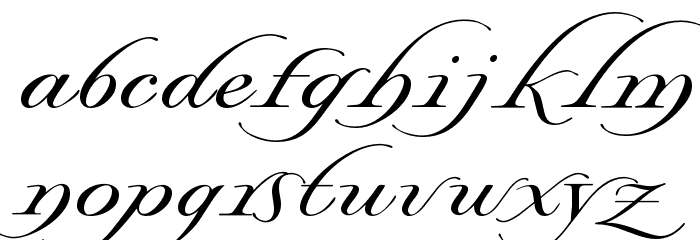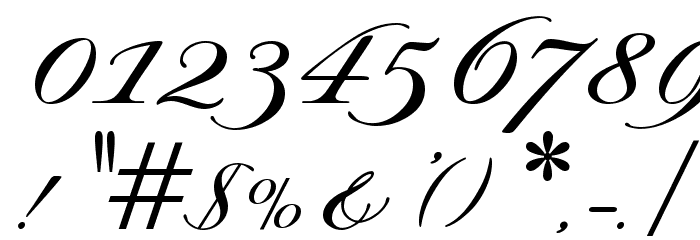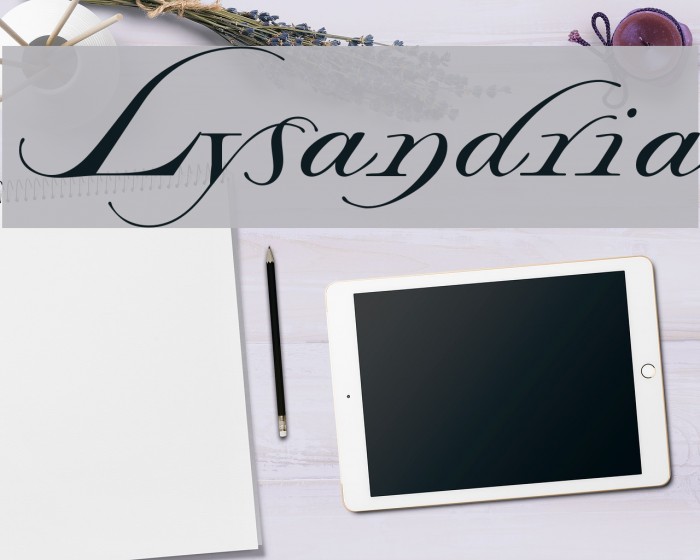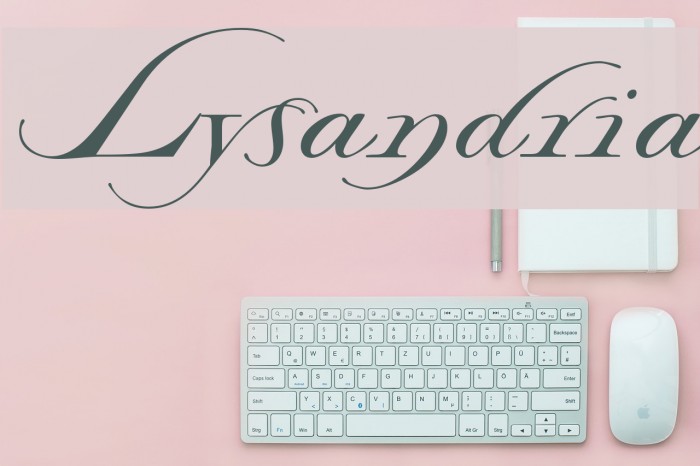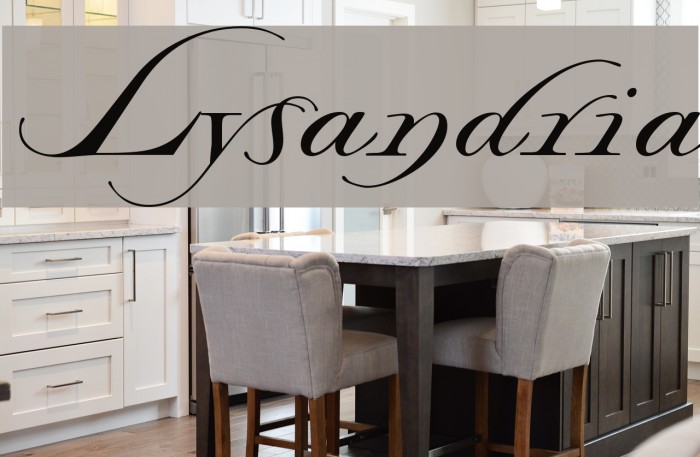
Lysandria Font
This elegant script font features flowing, cursive strokes with a sophisticated flair. The characters are gracefully connected, creating a harmonious and fluid appearance. The uppercase letters are particularly ornate, with sweeping lines and delicate curves that add a touch of luxury and refinement. The lowercase letters maintain a consistent style, complementing the uppercase with their own subtle flourishes. The numerals are designed to match the overall aesthetic, with a classic yet modern twist. Special characters are thoughtfully integrated, ensuring versatility and cohesion across various uses.
An elegant, flowing script font with sophisticated, cursive strokes.
- Proposed Projects: Ideal for wedding invitations, luxury branding, elegant packaging, and high-end editorial design.
- Category: Script
- Contrast: High
- Overall Style: Elegant
- Use Case: Logos, Invitations, Branding